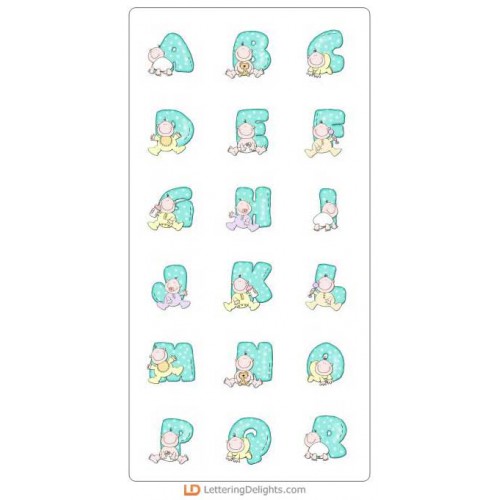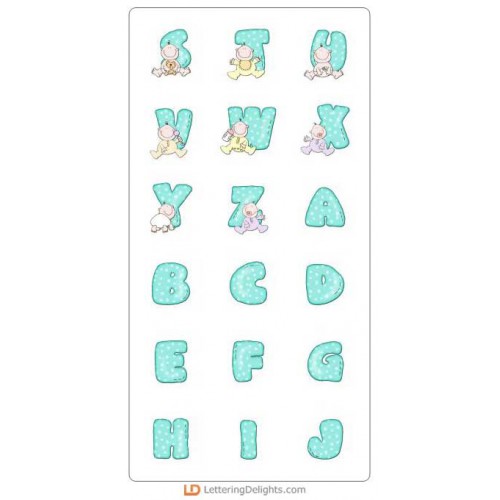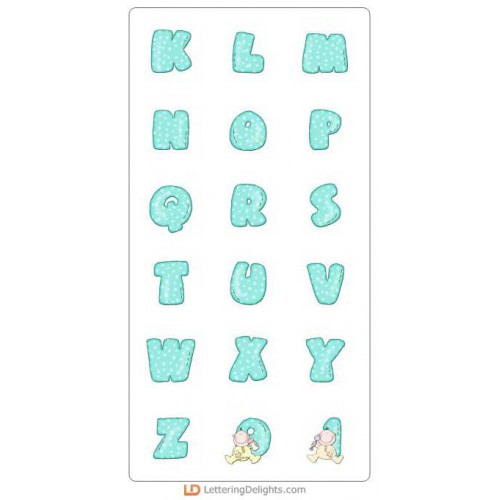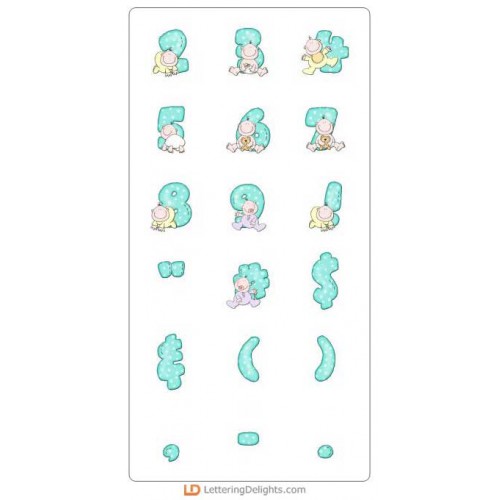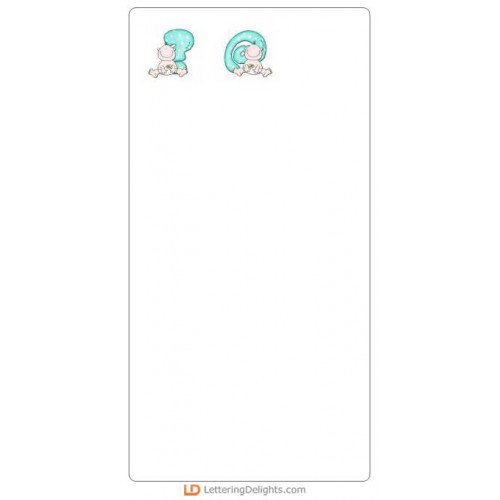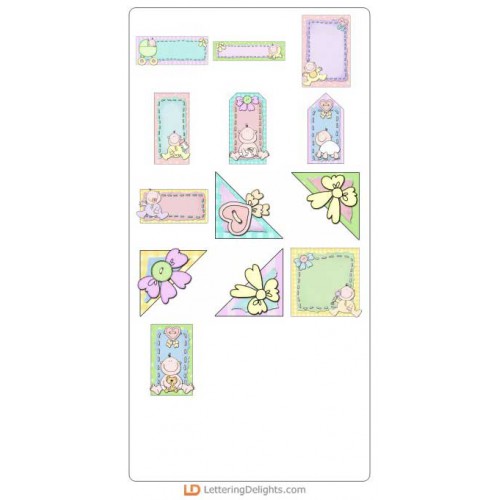
LDJ Baby Crazy Bundle - Dark, Light and Medium Skin Tones
You'll love this baby themed Jillustration bundle. It includes matching alphabets, Journaling Delights, and a true type font. The bundle is perfect for shower invitations, birth announcements, scrapbook pages, gift tags, greeting cards, and more.